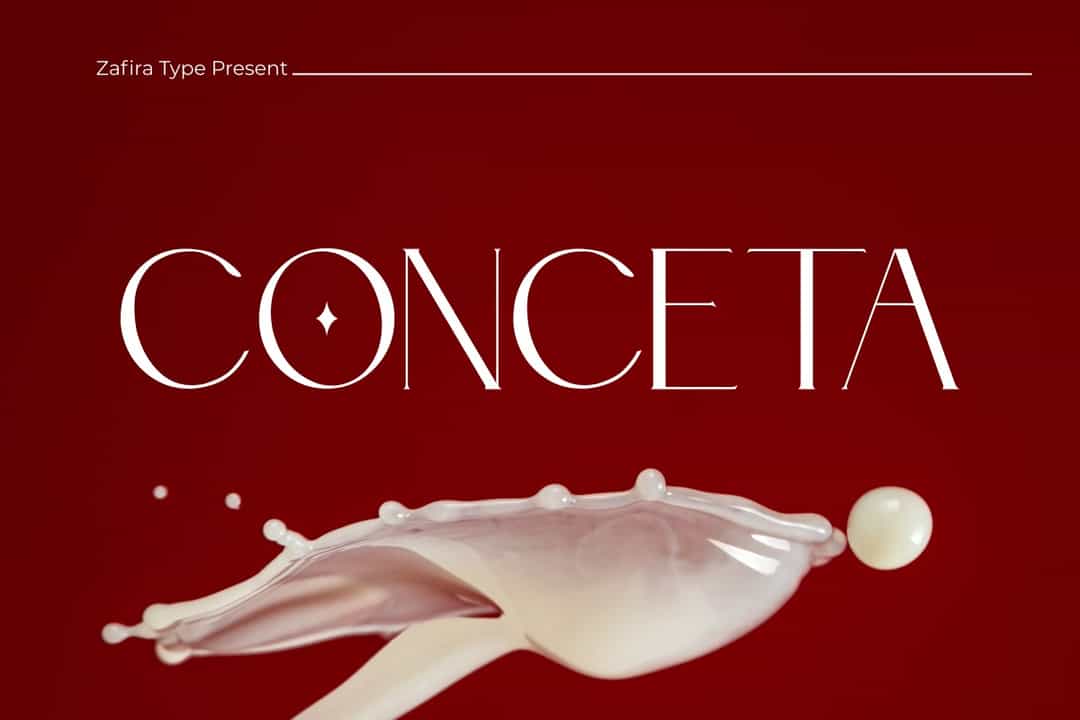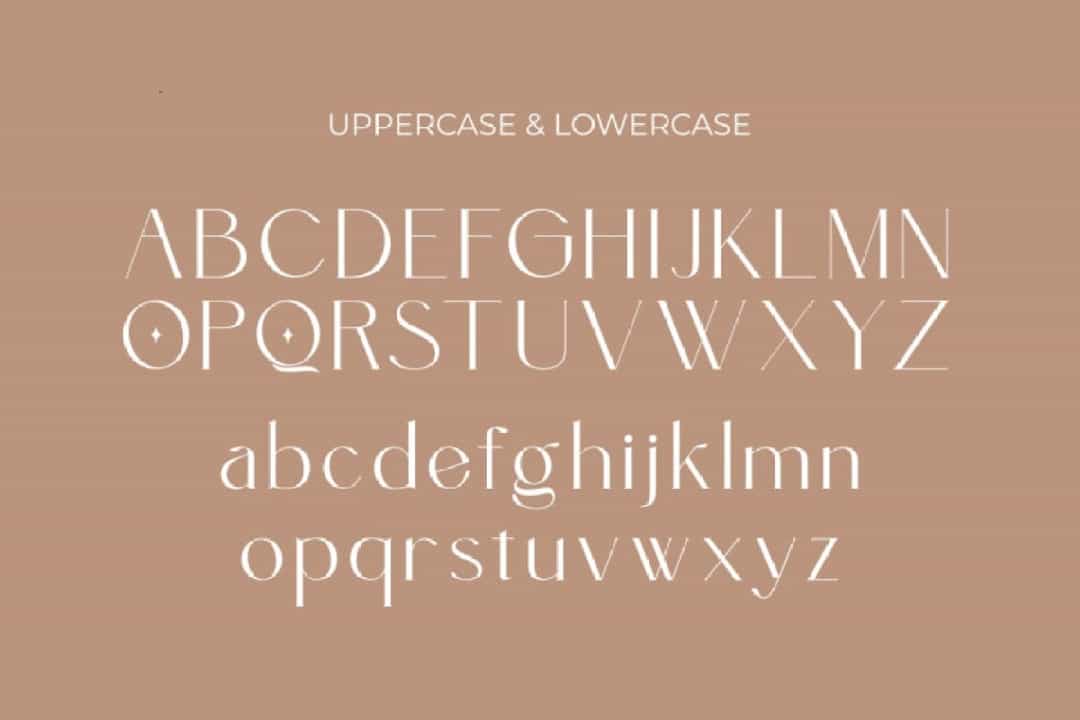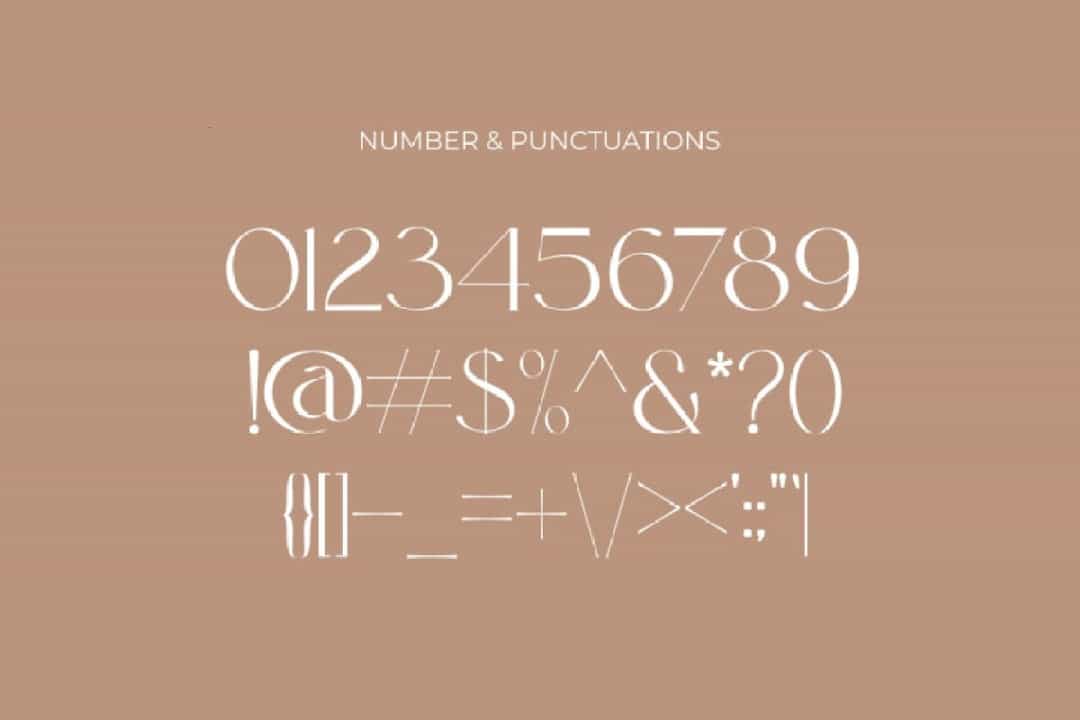
Conceta is an elegant serif typeface perfect for branding any modern design project. Featuring thin yet graceful curves to form beautiful slanted designs. Conceta was developed with great attention to detail for maximum precision so that creating beautiful and opulent designs becomes effortless.